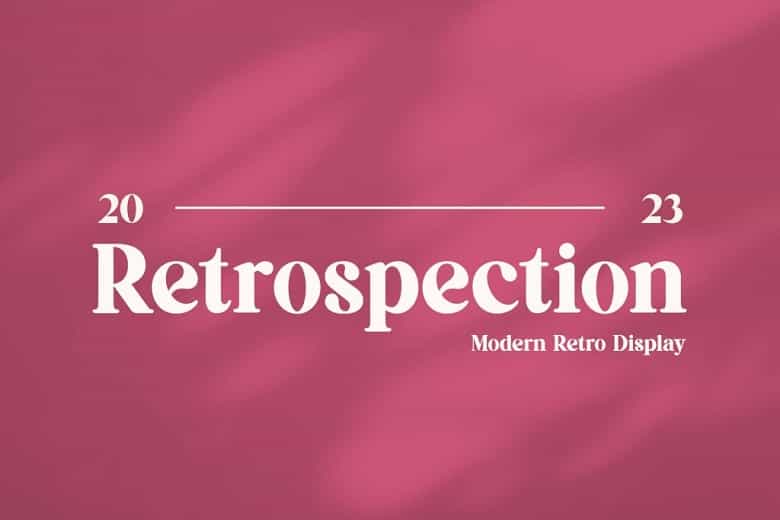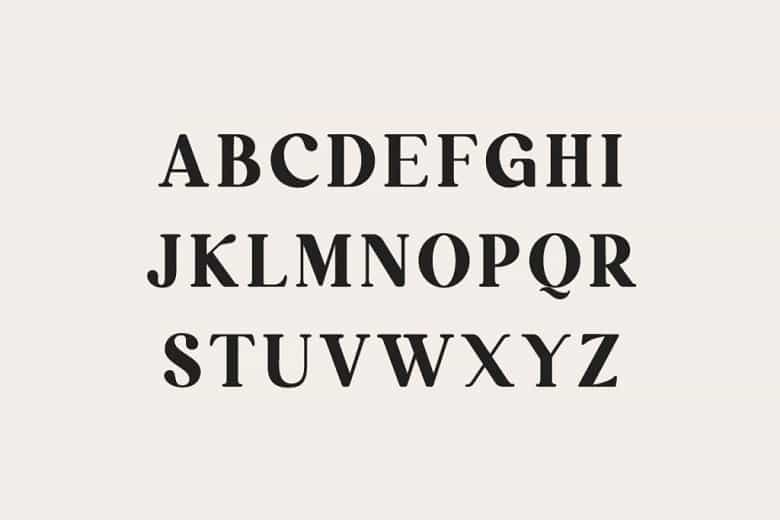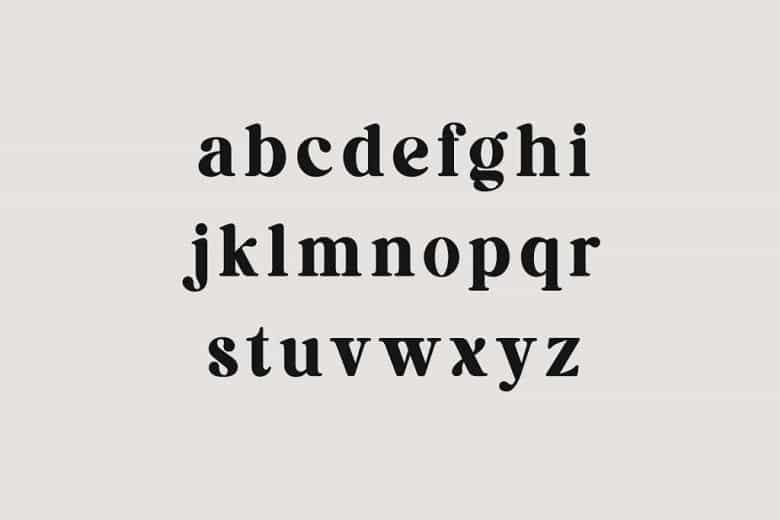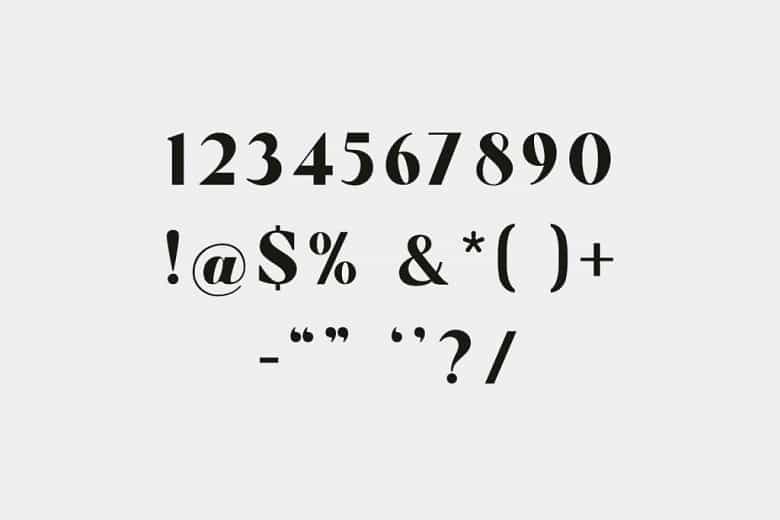
Retrospection is a modern retro display serif font looks classy, elegant and stylish and gives a very sophisticated look. This font is ideal for a number of projects and tasks including signature, stationeries, logos, weddings, quotes, magazine or book covers, website headers, branding, and many other.